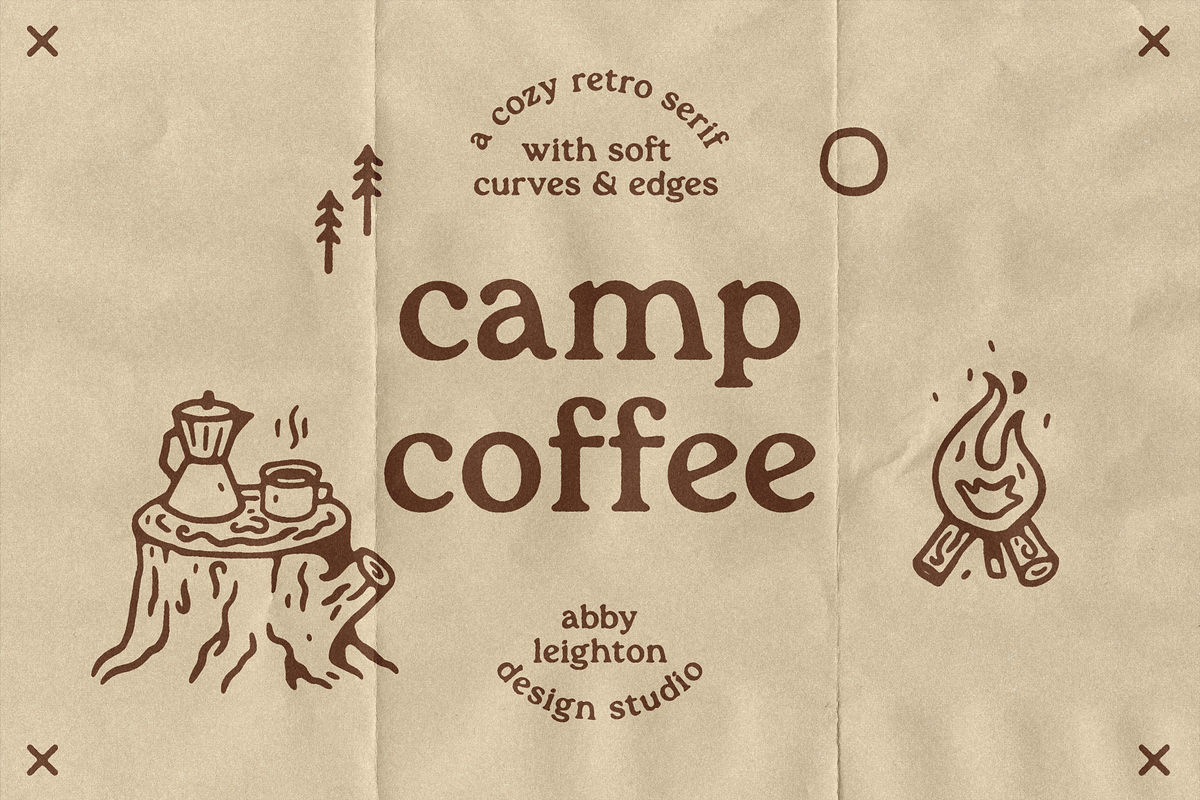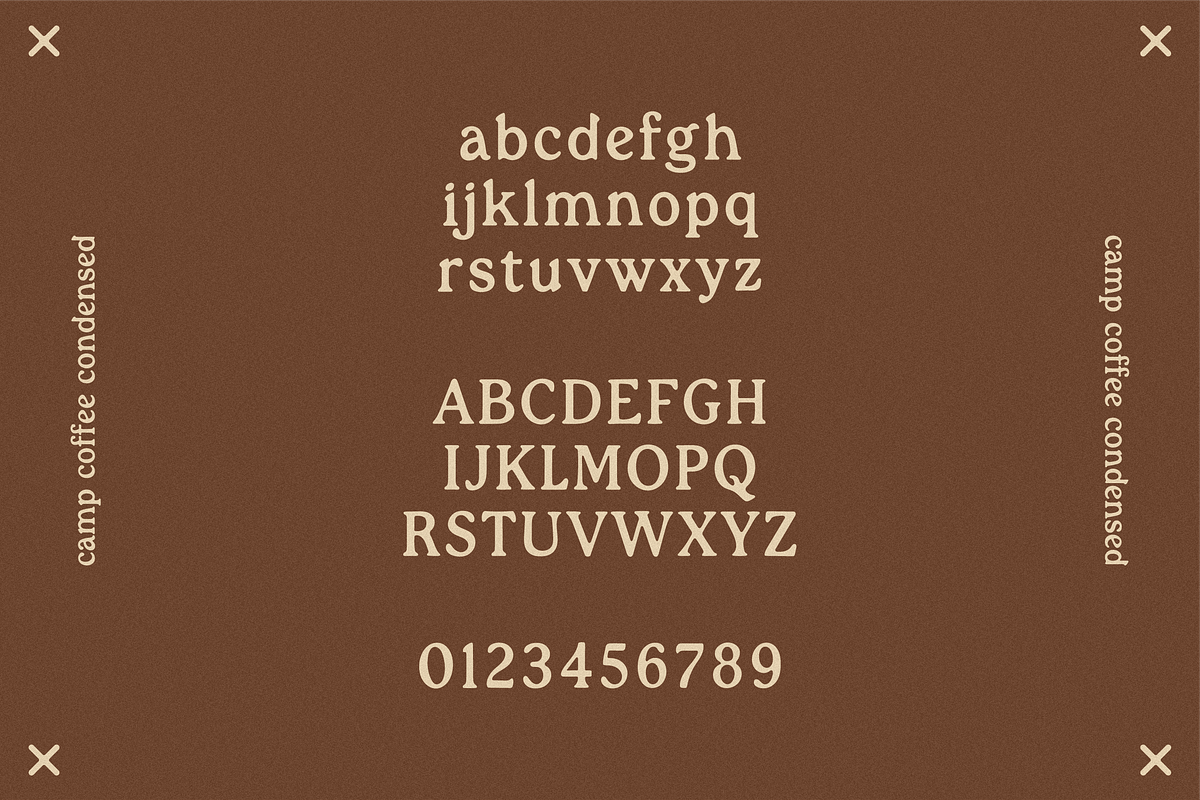
CAMP COFFEE by Abby Leighton
Camp Coffee is the perfect cozy retro serif font. Fantastic choice for your next graphic design project, and can be scaled to a variety of sizes. Comes with two variations: Regular and Condensed.